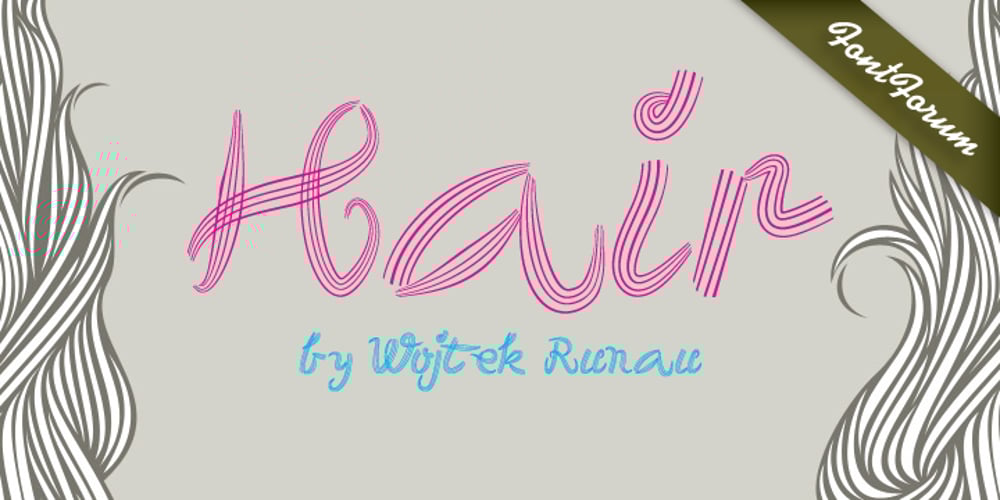
Hair Font Family was designed by Wojtek Ruhnau and published by URW Type Foundry. Hair contains 1 styles and family package options. Hair is another beautiful URW++ FontForum contribution by Wojtek Ruhnau. It is a technically ambitious multi-line script-like type design that should be used carefully and in large sizes only. However, set properly, Hair renders beautifully and charmingly.